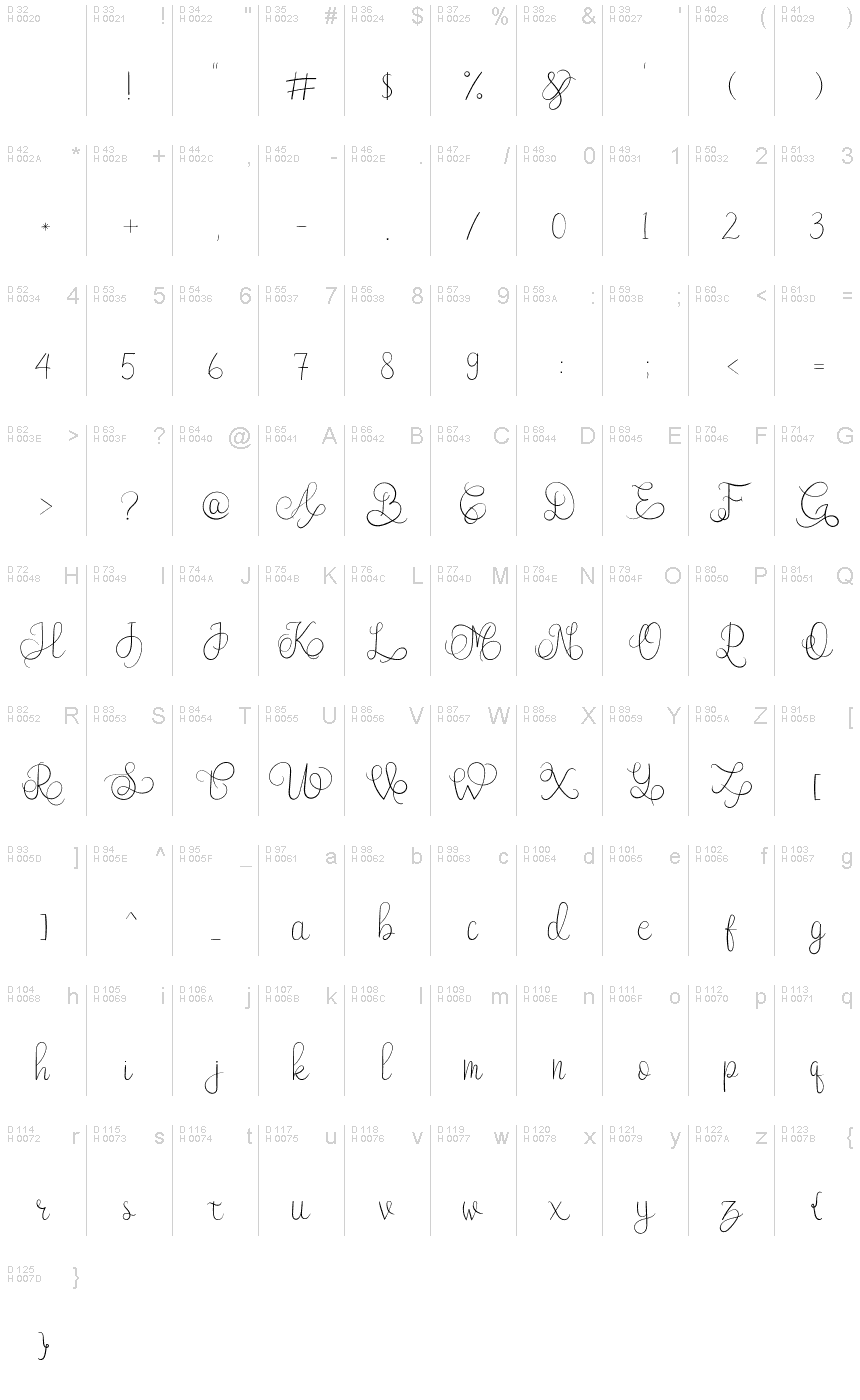
San Meltianne
San Meltianne by Ahmad Kartiwa is an exquisite calligraphy signature font that exudes elegance and sophistication. The extra-light weight adds a delicate touch, making it perfect for use in wedding invitations, greeting cards, and other formal documents. With its flowing stroke lines and graceful curves, San Meltianne can also be used for branding purposes such as logos, packaging designs, and advertisements. This font will elevate any project to new heights with its timeless beauty and unique character. Let San Meltianne be the signature of your next creative endeavor.